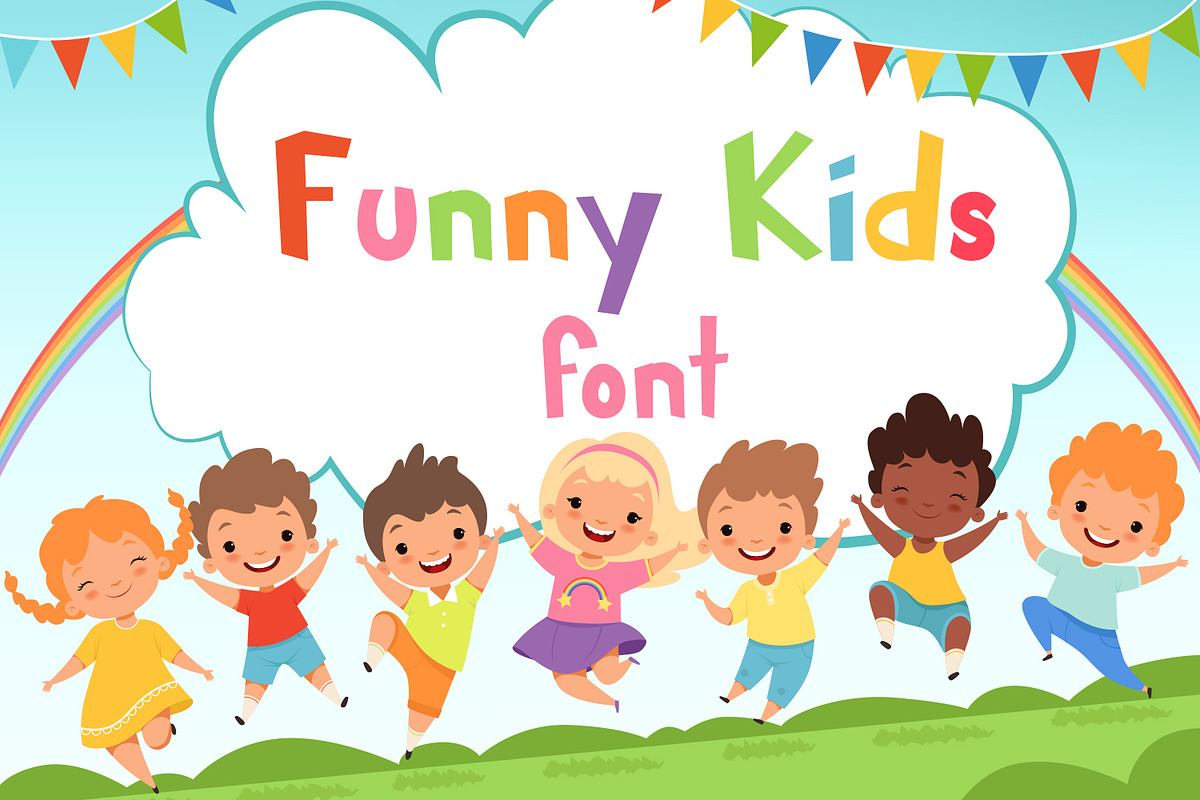
Funny Kids Font Free Download is a playful and vibrant typeface designed to capture the joyful spirit of childhood. With its bubbly letterforms, cheerful curves, and hand-drawn charm, this font is perfect for children’s books, toys, birthday invitations, school projects, educational apps, and kid-friendly branding.
Its bold and easy-to-read style makes it ideal for headlines and titles, while the whimsical personality keeps things lighthearted and fun. Whether you’re designing for preschoolers or creating a colorful cartoon brand, Funny Kids brings smiles to every letter.